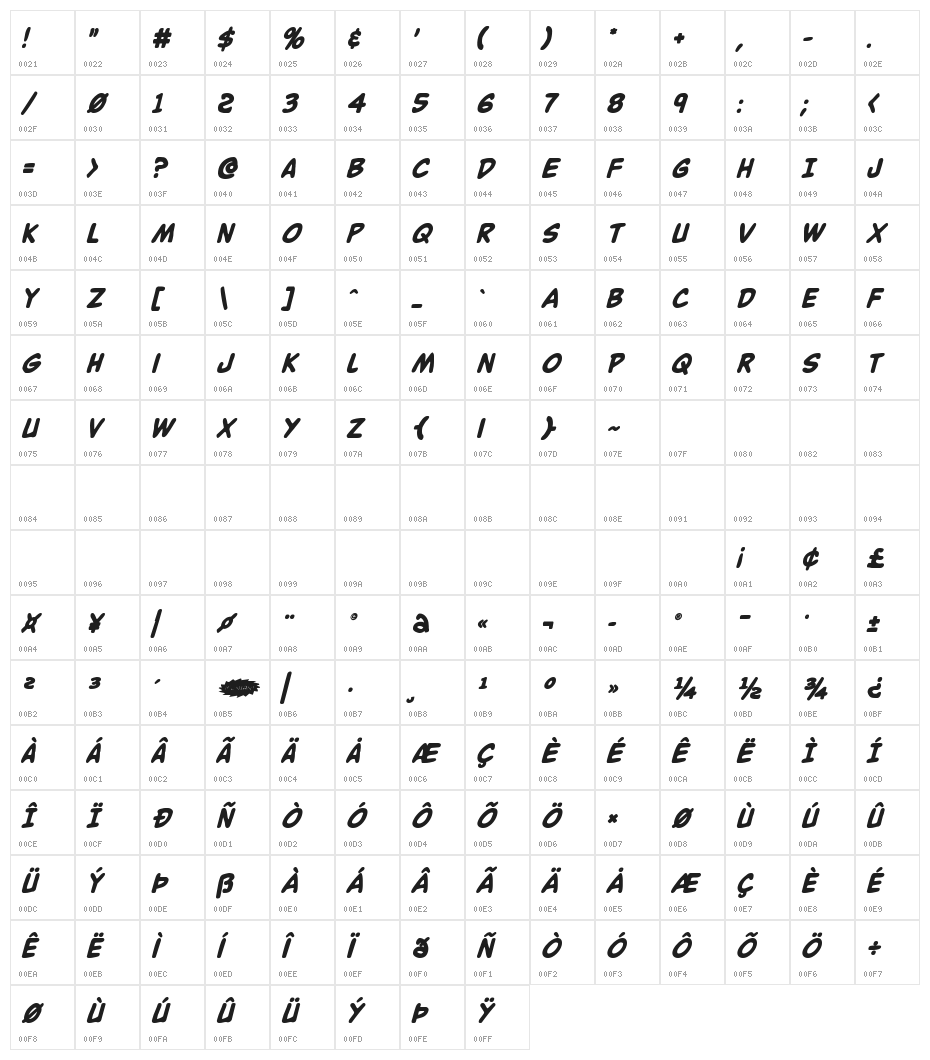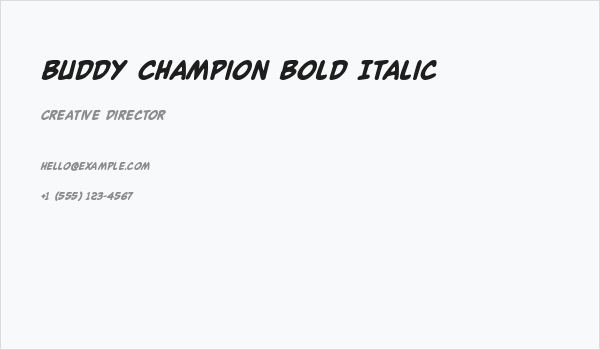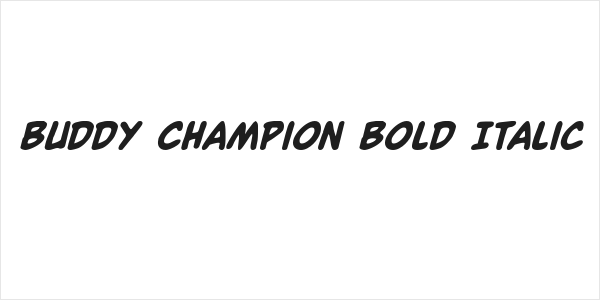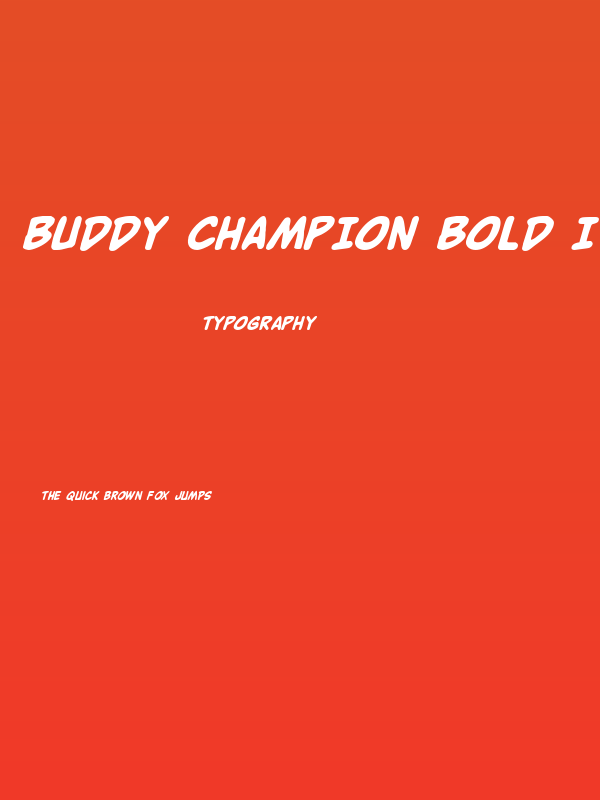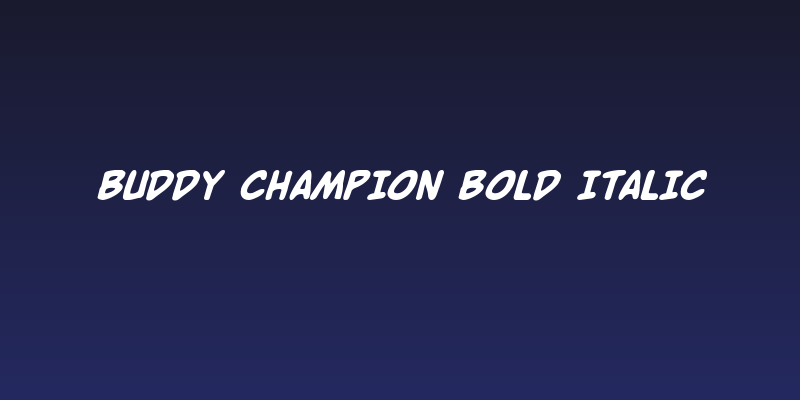
Buddy Champion Bold Italic Font
Buddy Champion Bold Italic Description
This font features a bold and italicized style with a playful and energetic appearance. The letters are rounded and slightly slanted, giving them a dynamic and informal look. The strokes are thick and consistent, providing a strong visual impact. The characters are closely spaced, enhancing the boldness and making it suitable for attention-grabbing designs. The numbers and special characters maintain the same bold and italicized style, ensuring uniformity across all elements.
| Overall Style | Playful, Energetic |
| Proposed Projects | Ideal for branding, posters, and headlines where a bold and playful look is desired. |